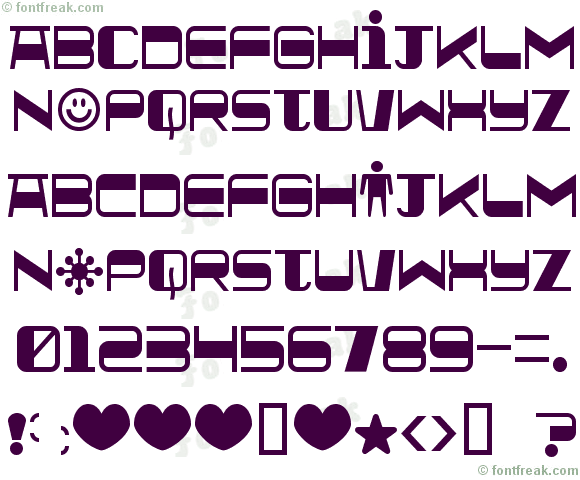
Quickometer
About Quick Meter
The Quick Meter font, designed by Pizzadude, is a striking display typeface that captivates with its modern yet playful aesthetic. This font falls into the category of decorative typefaces, characterized by its unique blend of rounded forms and sharp edges that create a sense of dynamism. The stroke weight is consistent throughout, offering a balanced visual appeal that is both bold and approachable. The spacing is well-considered, allowing for easy readability, while the subtle decorative elements add a touch of whimsy without overwhelming the viewer.
Quick Meter is perfect for a variety of creative applications. Its lively character makes it an excellent choice for eye-catching movie posters, where it can draw attention and convey a sense of excitement. Additionally, it works wonderfully on restaurant menus, providing a friendly and inviting atmosphere that enhances the dining experience. For graphic designers creating vibrant social media graphics, the Quick Meter font can add a distinctive flair that captures the essence of the brand. Small business owners will find it particularly useful for branding materials, as it effectively communicates personality and style. Content creators can also leverage this font for engaging blog headers or promotional materials, ensuring their message stands out in a crowded digital space.